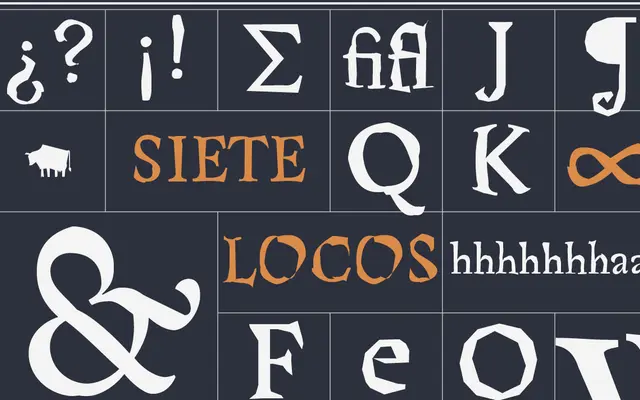
Arlt 7 Locos
Pampatype · Alejandro Lo Celso · 2008
Seven progressively deconstructed variants of the Arlt serif, each named after a character from Roberto Arlt's Buenos Aires novel and designed to work at small sizes on rough paper.
Designed by Alejandro Lo Celso and released in 2008, the series takes the letterforms of the parent Arlt typeface and systematically destroys them across seven distinct styles. Each font is named after a character from Roberto Arlt's Seven Madmen and draws on Lunfardo, the argot of Buenos Aires, for its cultural grounding. At small sizes on coarse stock the distortions read as atmospheric rather than chaotic, making the set well suited to literary, poetic and editorial contexts.
Seven individually deconstructed serif display fonts derived from the Arlt family, each progressively distorted to expressive and experimental effect; the foundry tags them as serif, decorative, expressionist and display.